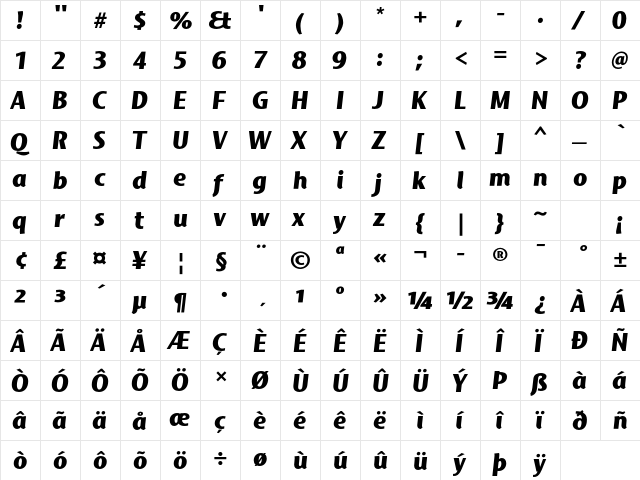
Mosquito Std Black Italic
Design Context for Mosquito Std Typeface
Mosquito Std is a composed and adaptable typeface that performs quietly and consistently across a wide range of design contexts. Its italic angle brings a sense of urgency and motion to the letterforms.
Pro Tip: Try Mosquito Std for annotation and caption copy alongside an upright companion — the contrast in angle creates a dynamic but ordered typographic system.